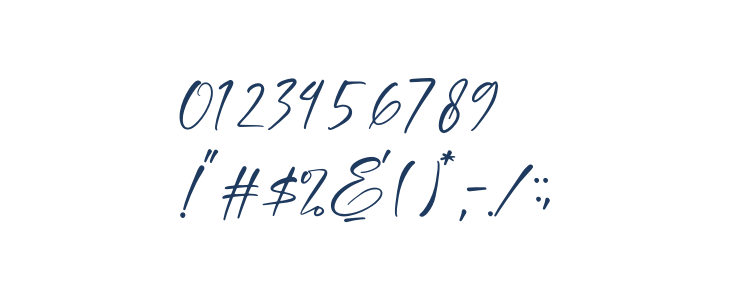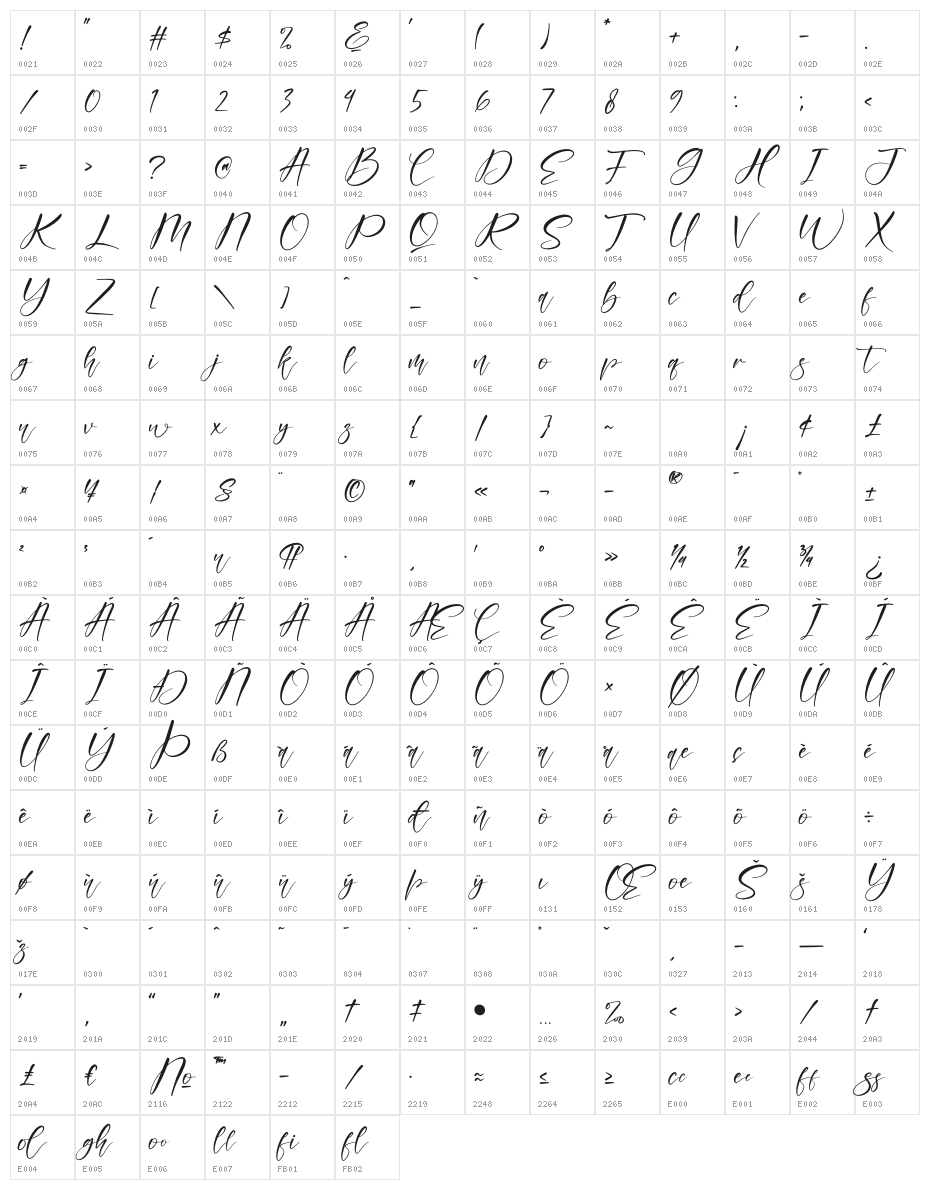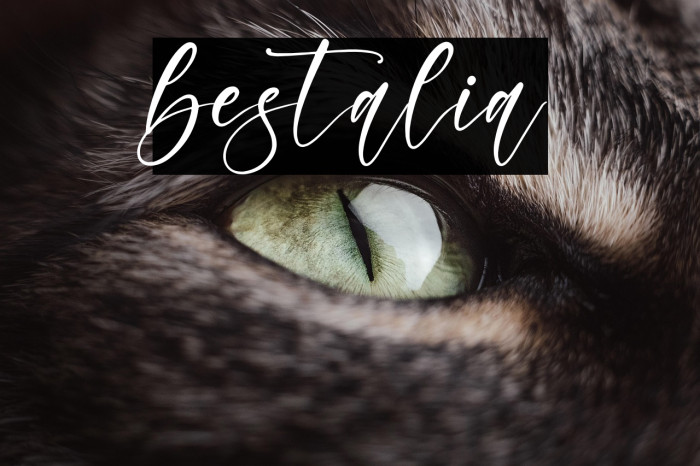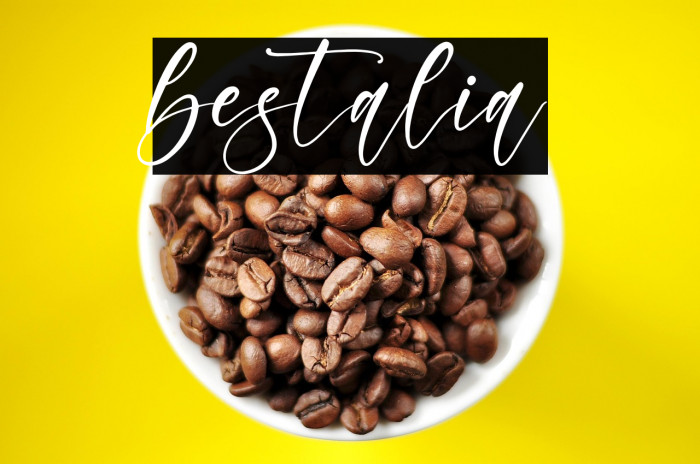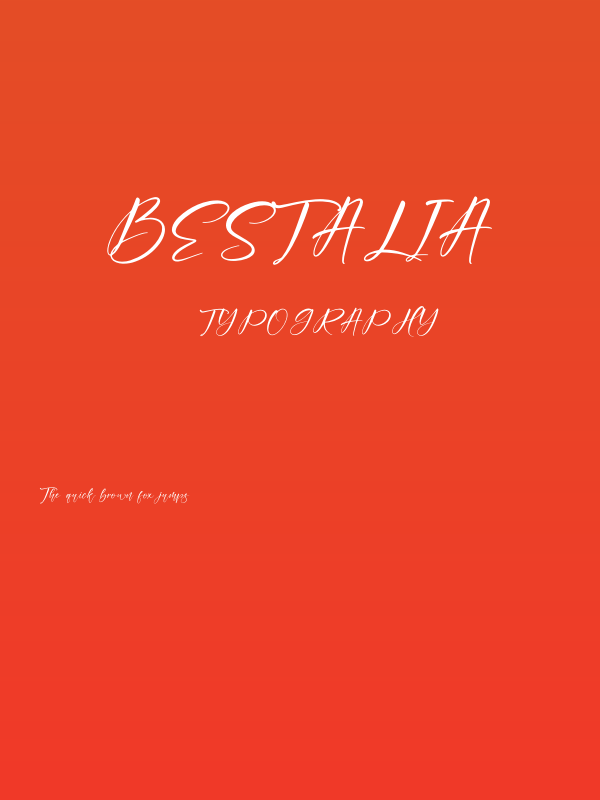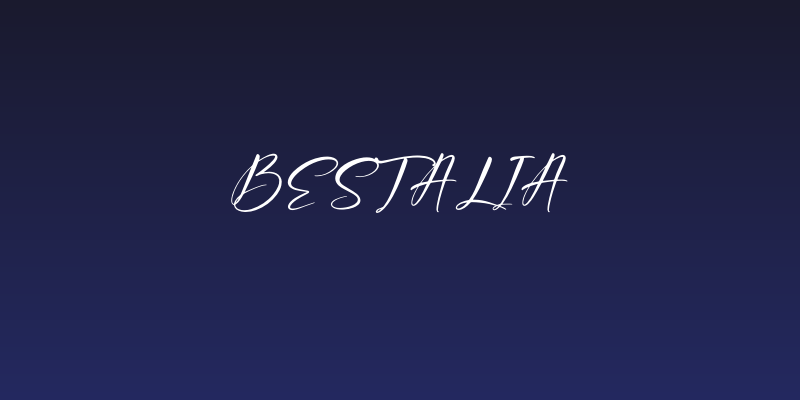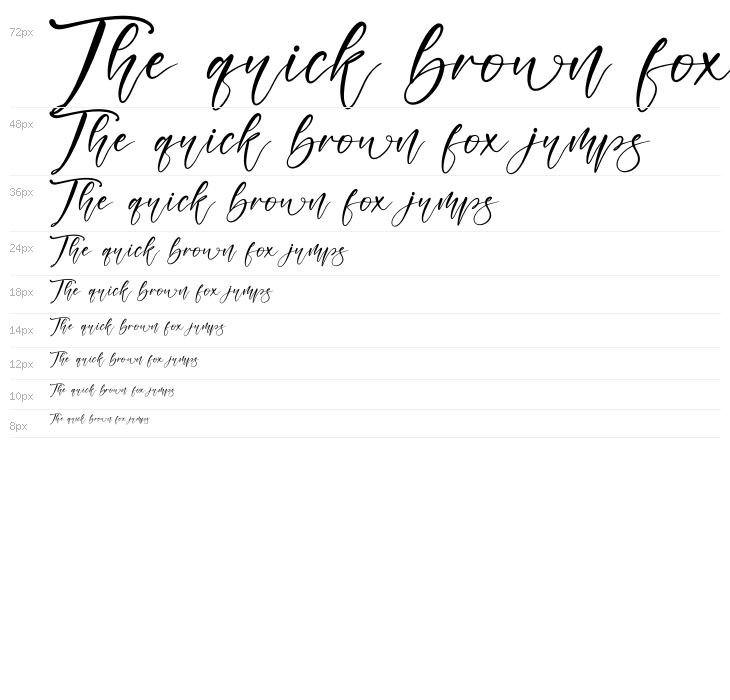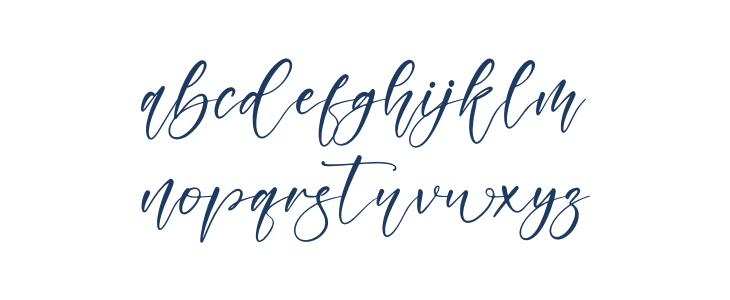
bestalia Font
bestalia Description
This font exudes elegance and fluidity, characterized by its cursive, handwritten style. The letters are gracefully connected, with sweeping ascenders and descenders that add a sense of movement and sophistication. The strokes vary in thickness, providing a dynamic contrast that enhances readability while maintaining an artistic flair. The uppercase letters are bold and prominent, while the lowercase letters are more delicate, creating a harmonious balance. The numerals and special characters are designed with the same flowing style, ensuring consistency across all elements.
| Overall Style | Elegant, Artistic |
| Proposed Projects | Ideal for wedding invitations, greeting cards, branding projects, and elegant logo designs. |